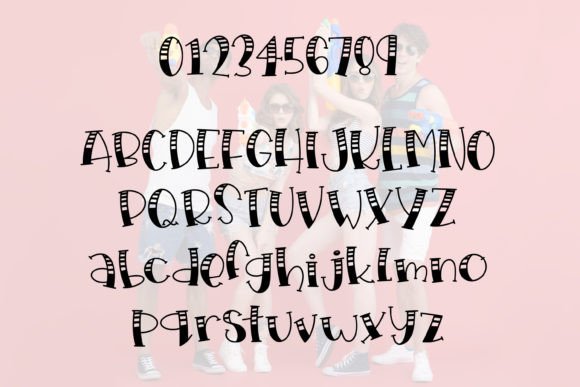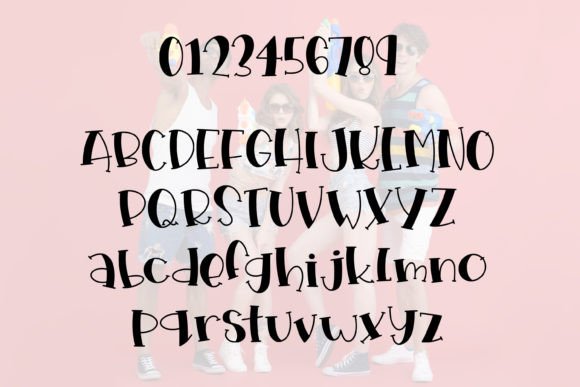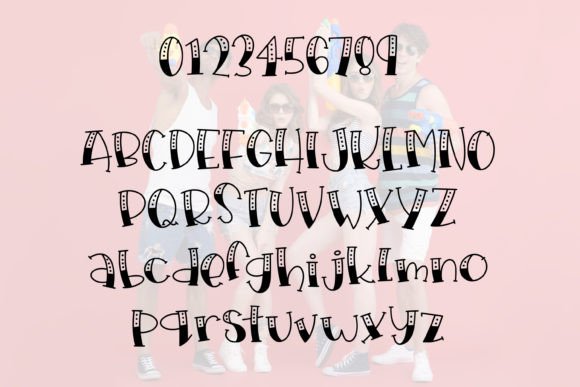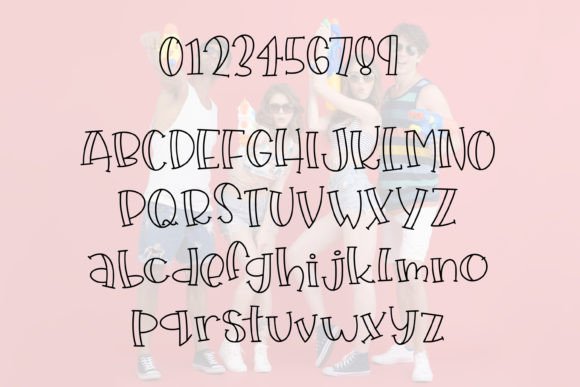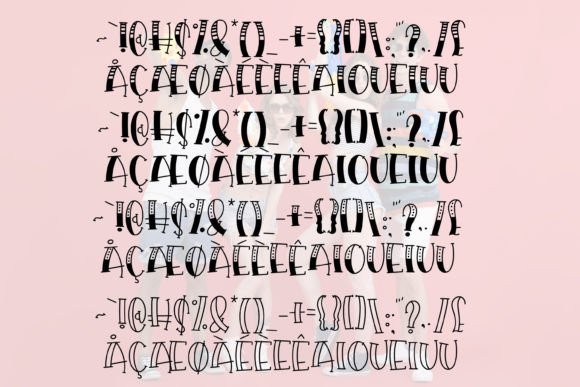
Introduction to Quirky Quad Goals Font
Quirky Quad Goals is a fun and lively font that brings a fresh and playful vibe to your designs.
With its unique and whimsical letterforms, this typeface is perfect for creative projects that aim to stand out Whether youโre designing for a party invitation, summer event, or playful branding, Quirky Quad Goals will add a touch of spontaneity and energy.
Key Features of Quirky Quad Goals Font
Why Choose Quirky Quad Goals Font?